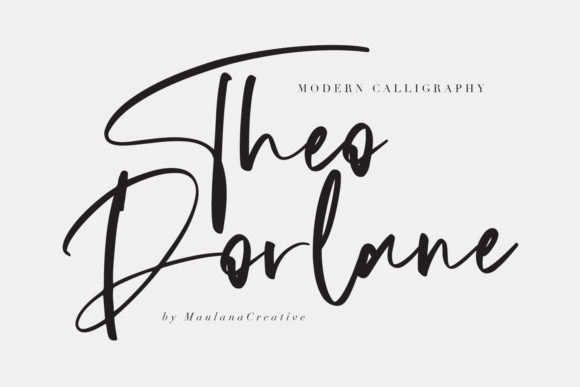
Feast your eyes on Theodorlane, a breathtaking script font that exudes elegance and charm. With its graceful strokes and captivating curves, Theodorlane will weave a spell of enchantment onto your creative endeavors.
Crafted by the visionary artisans at Maulana Creative, Theodorlane is a true masterpiece that harmonizes the bold strokes of a brush pen with the delicate lines of a pencil, resulting in an aesthetic that is both captivating and authentic. This font possesses an endearing quality that instantly draws people in, leaving them spellbound by its beauty.
Immerse yourself in the world of Theodorlane and discover a font that is as versatile as it is beautiful. Whether you're a designer seeking to craft an unforgettable logo, a writer penning an enchanting novel, or a social media enthusiast seeking to make a statement, Theodorlane will elevate your creations to new heights.
With Theodorlane as your creative companion, you'll unlock a world of possibilities. Create stunning signatures that exude sophistication and charm, stationery that reflects your unique personality, and logos that command attention. From magazine and book covers that captivate readers to invitations that set the stage for unforgettable occasions, Theodorlane is the font that knows no bounds.
Join the creative revolution and embrace Theodorlane, the script font that will ignite your imagination and transform your designs into works of art. Let its enchanting strokes dance across your creations, leaving a trail of beauty and inspiration in their wake. Theodorlane awaits you, ready to unleash your creativity and enchant the world with your vision.